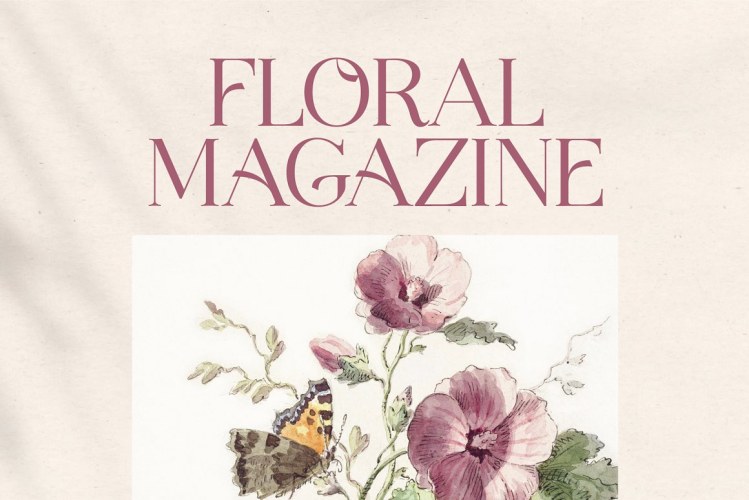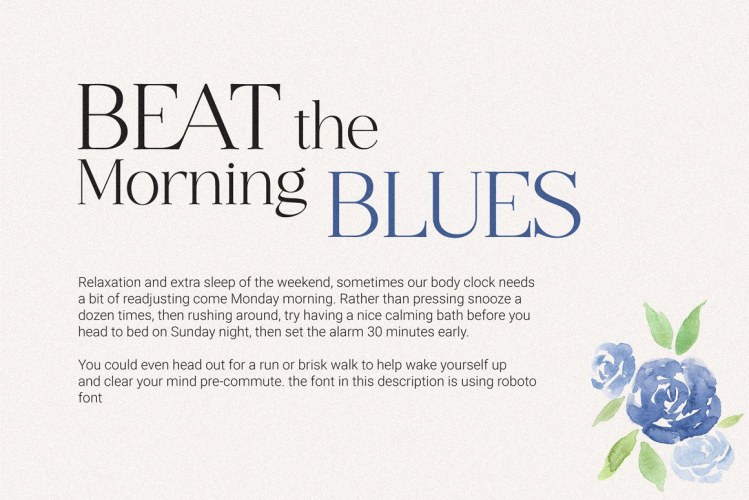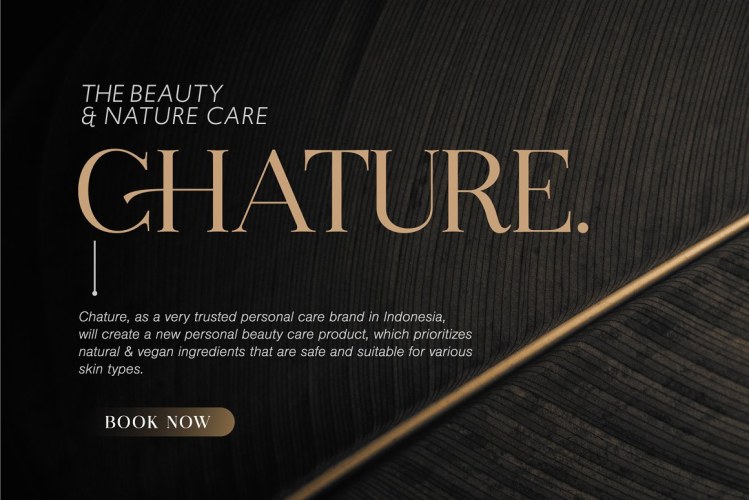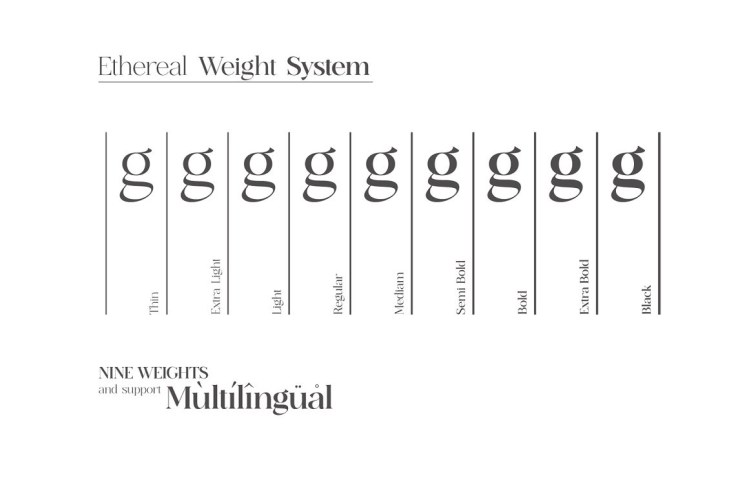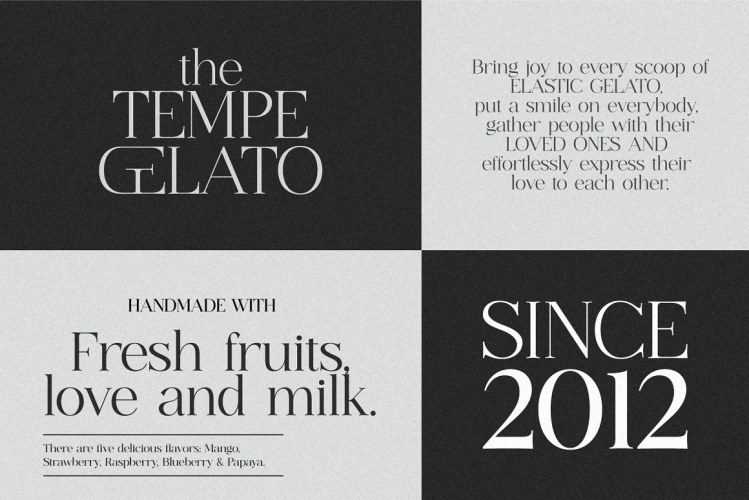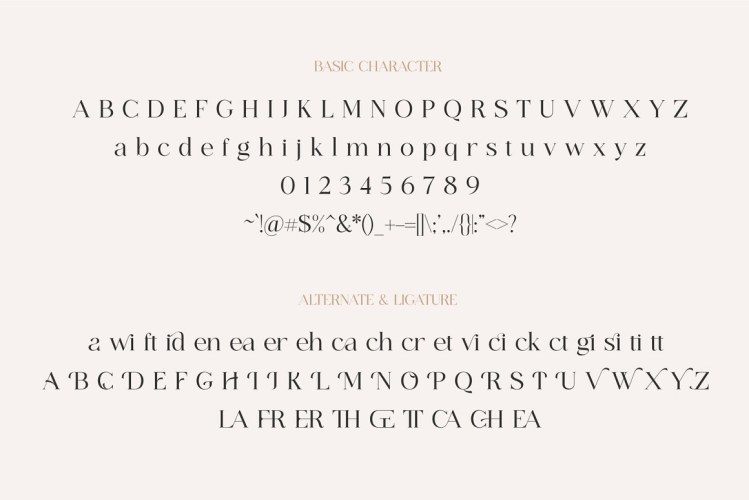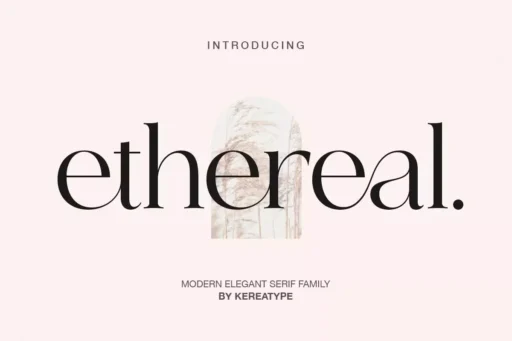
Ethereal Font
Ethereal is an elegant serif font family that gracefully evokes the contemporary world. This font family has nine different weights, so you can select the one that best suits your design needs. It is quite distinct, with a fairly modern and stylish feel accentuated by fashionable elements that provide a certain uniqueness to each character.
Designed by Kereatype. Ethereal Font Family has a simple and sleek look with measuring that incorporates the best of both the traditional serif and the contemporary styles. This makes Ethereal ideal for projects that require a more professional and classy look as compared to the other fonts.
For branding, editorial design, invitations, and web typography, Ethereal will give your projects an elegant and classy touch. Various weights are provided to assist you in employing the font for titles, texts, and other specifications. Each font weight has been made to be as readable as possible and to convey your message as elegantly and as accurately as possible.
Ethereal Font is a Serif Fonts font that brings a professional and versatile look to your projects. Ethereal is an elegant serif font family that gracefully evokes the contemporary world.